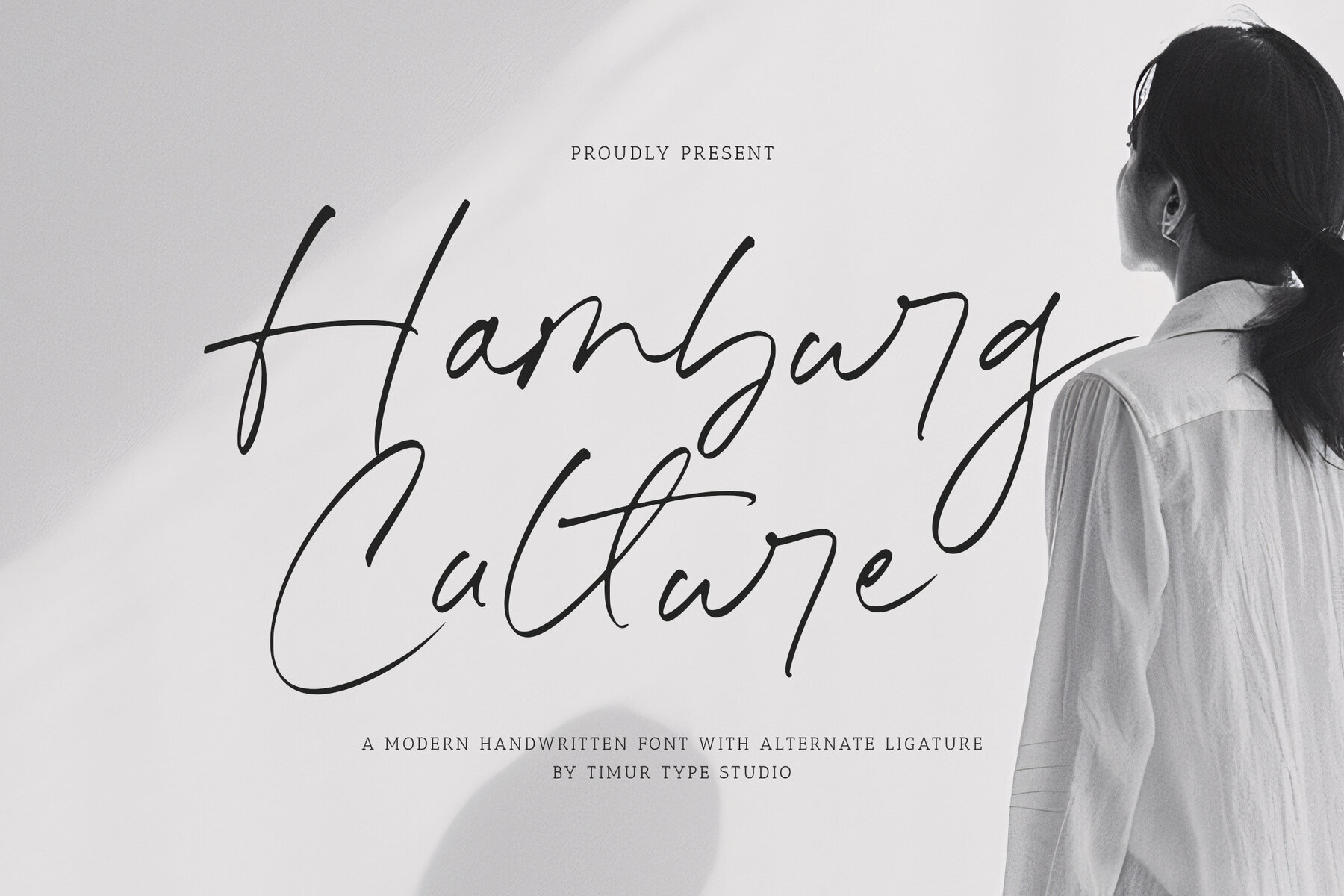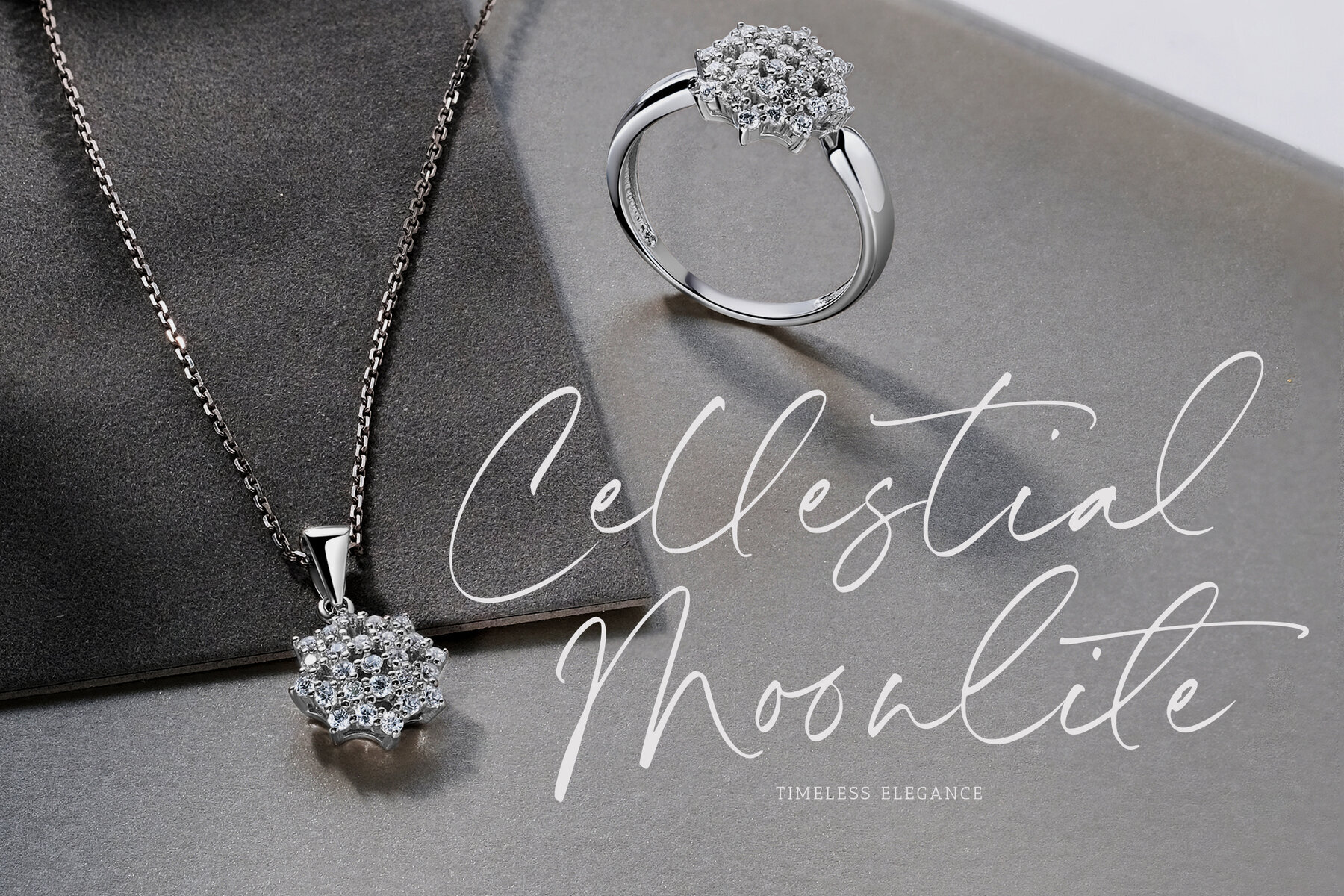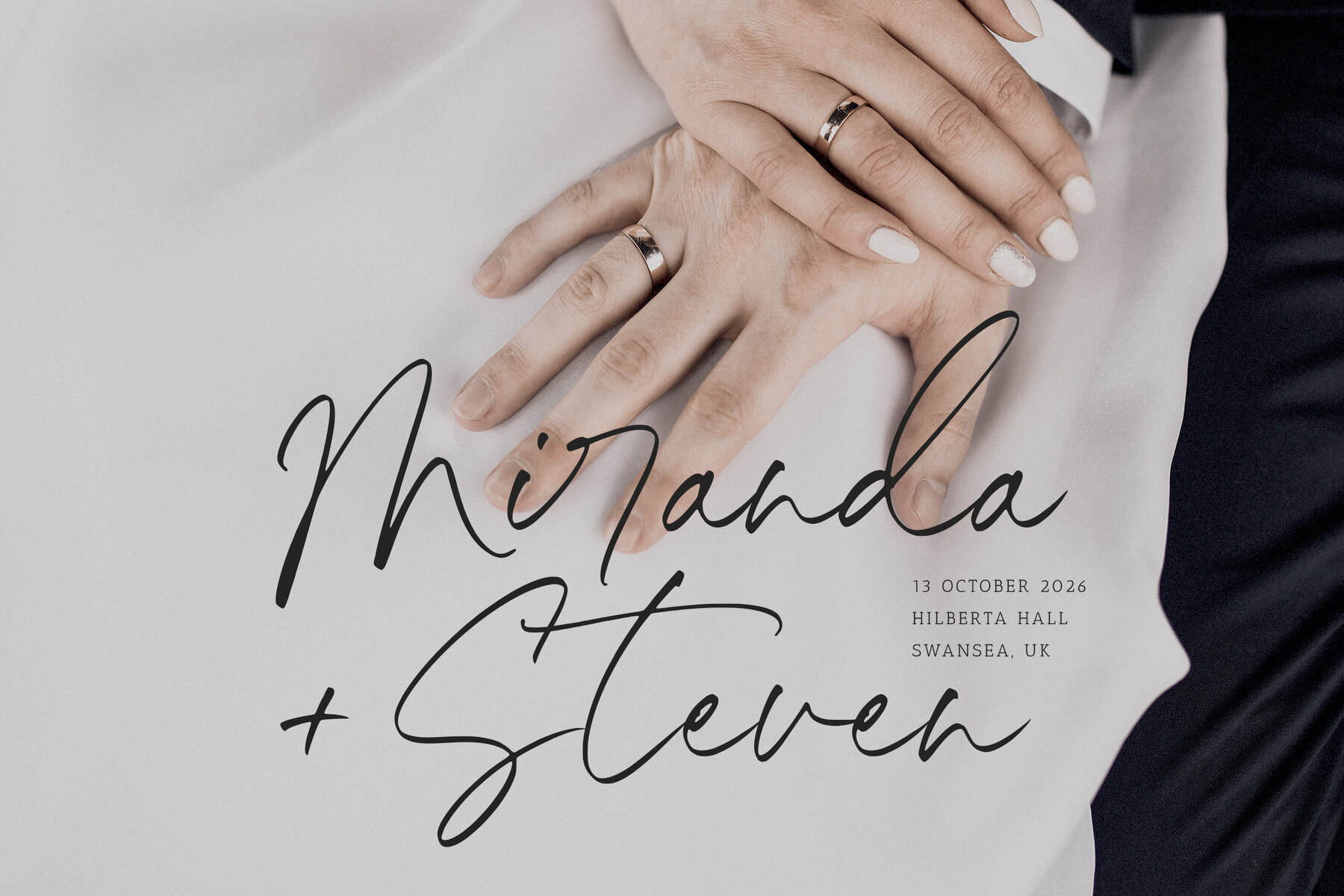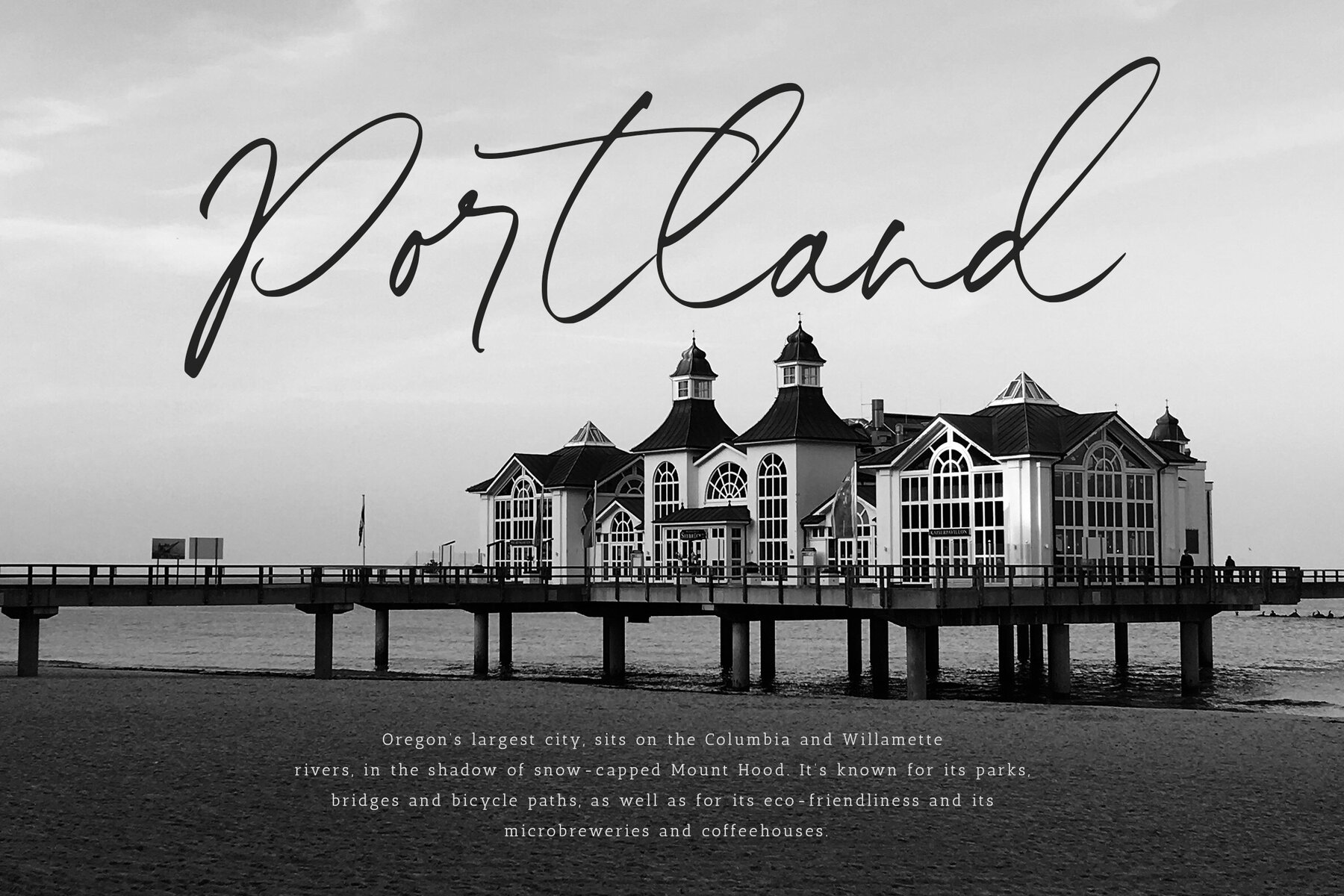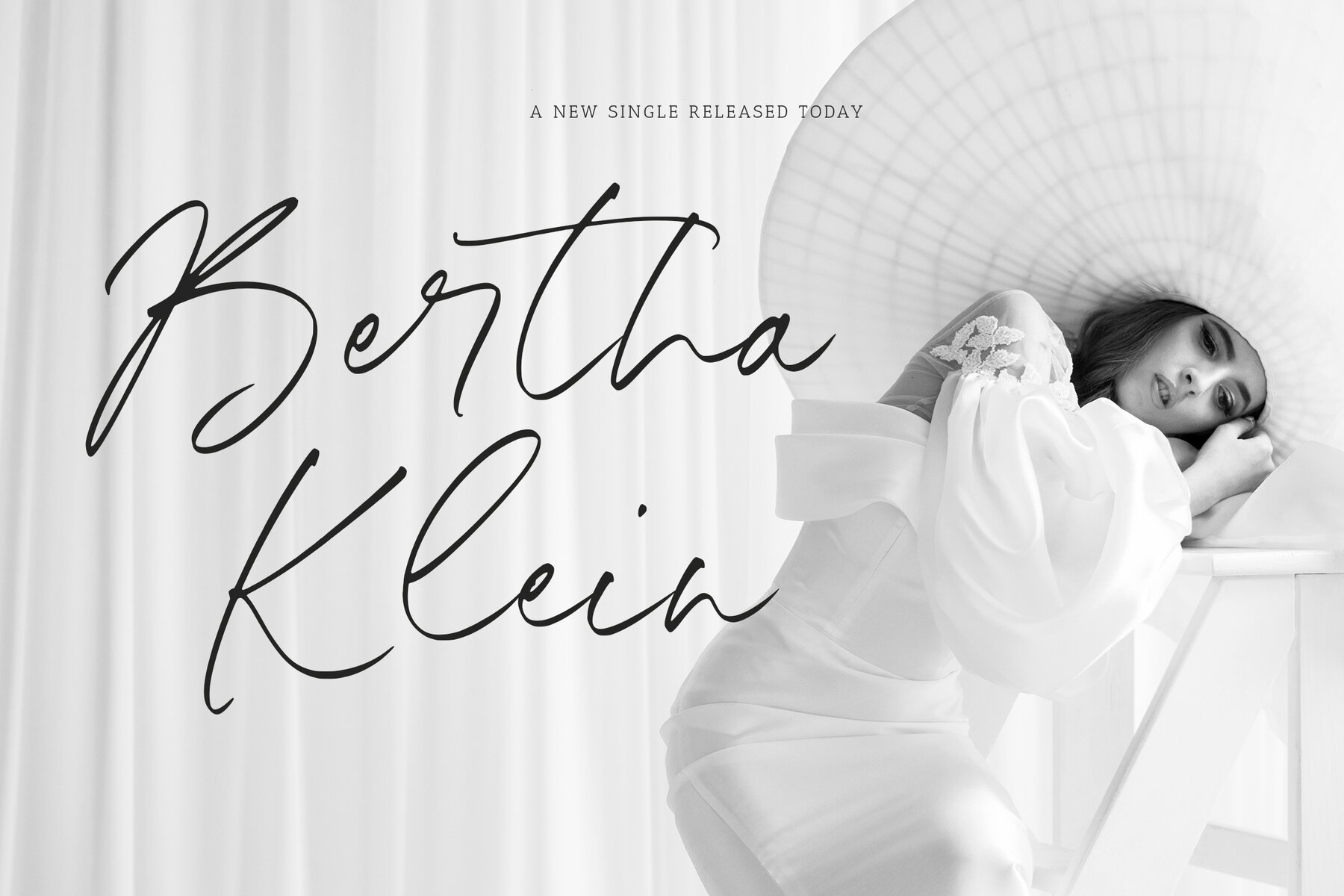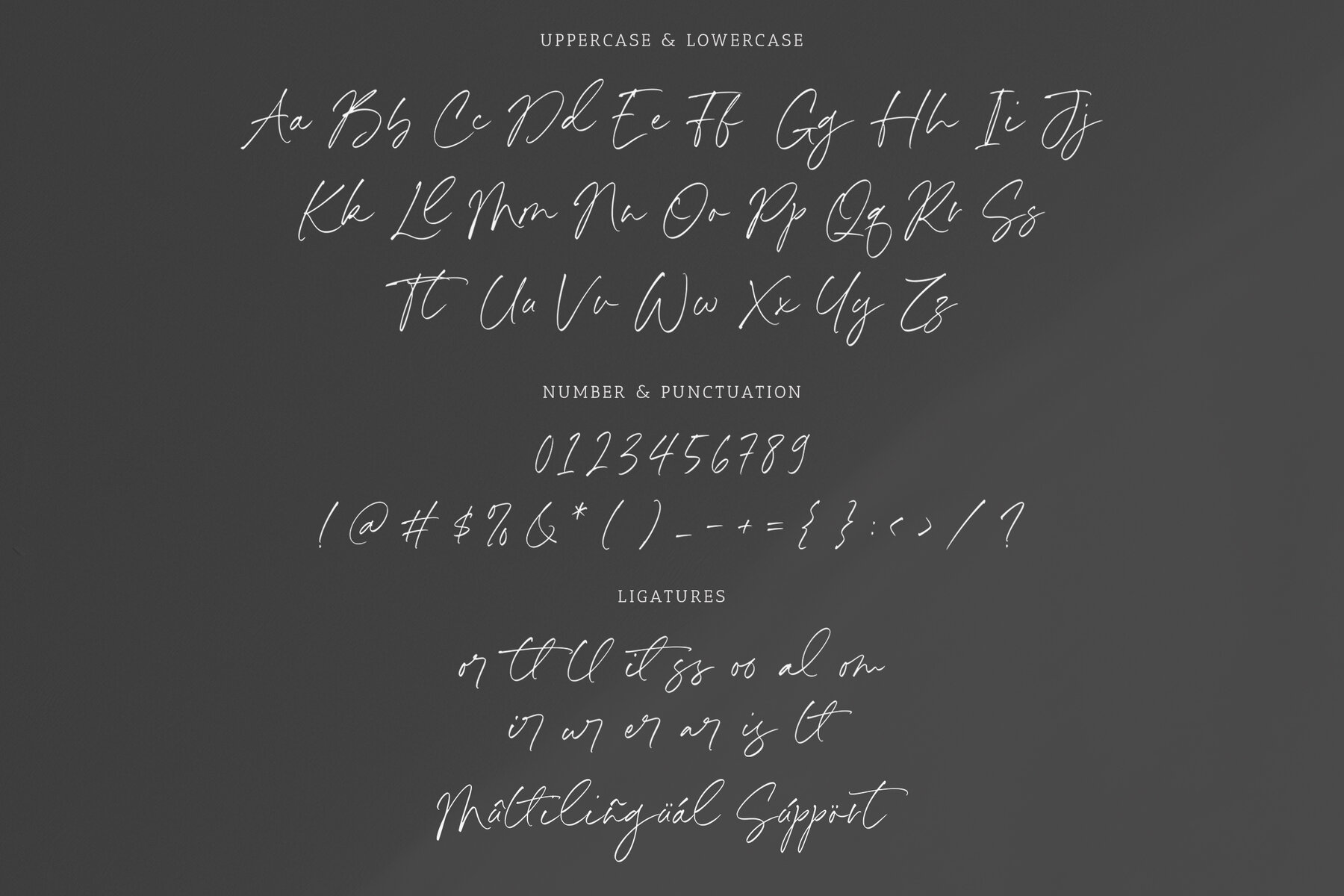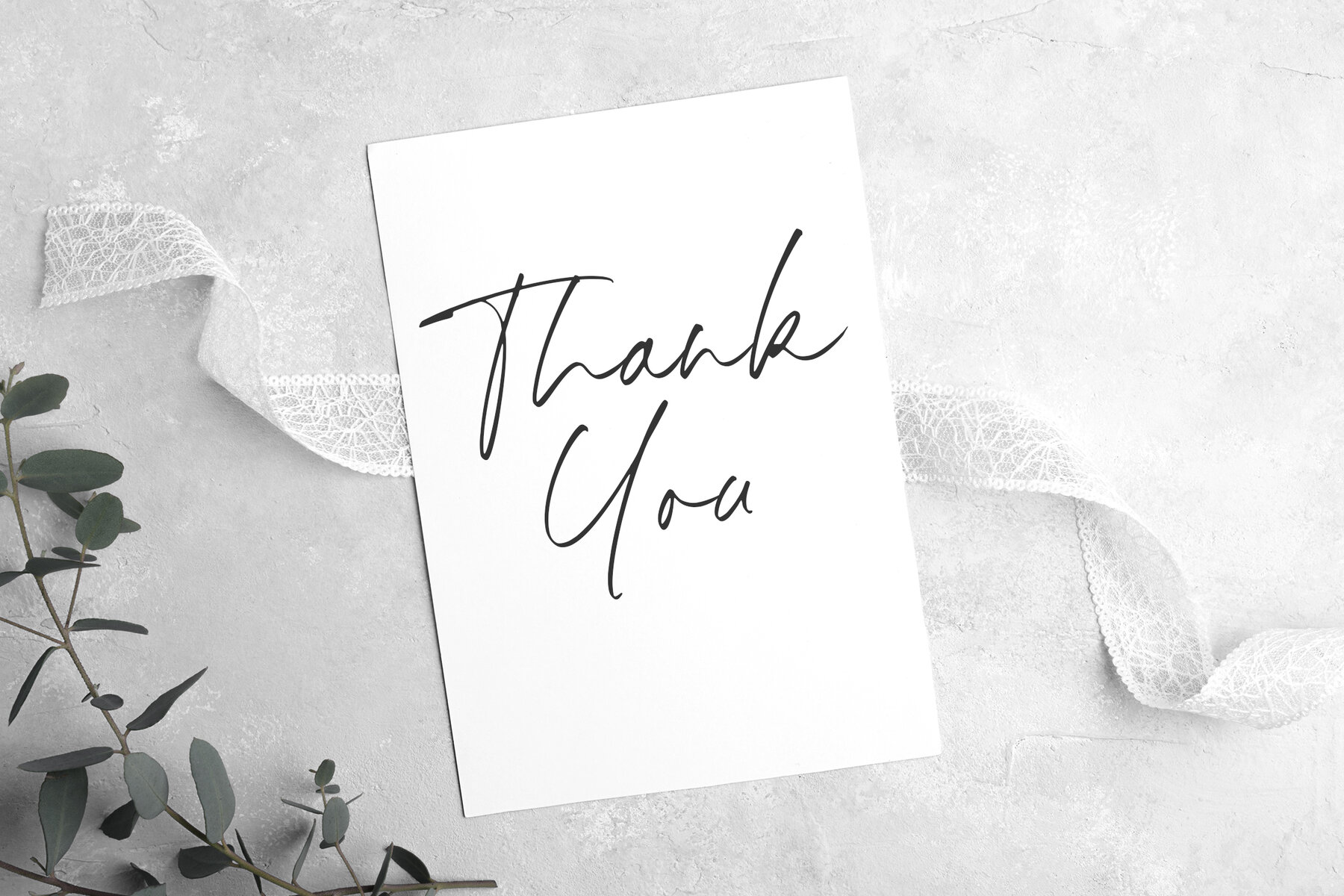
Hamburg Culture Font
Hamburg Culture
Hamburg Culture is a modern handwritten font that embodies the spirit of urban creativity. With its flowing strokes and dynamic characters, it exudes modernity and sophistication, suitable for projects requiring a blend of elegance and casual style. It features unique alternate ligatures, providing designers the opportunity to customize and enrich typography with distinctive flourishes, adding a playful touch to their creations.
Perfect for both digital media and print, this font introduces an artistic flair and versatility. Whether utilized in branding, invitations, or editorial designs, it imparts a fresh aesthetic that enhances the visual appeal of any project. Its adaptability across various design elements makes it a valuable asset for designers seeking to convey a unique and contemporary feel.